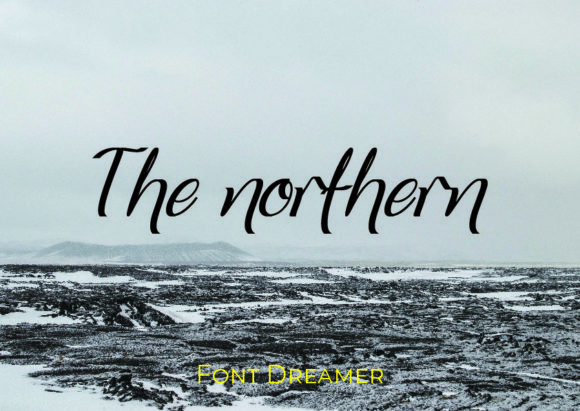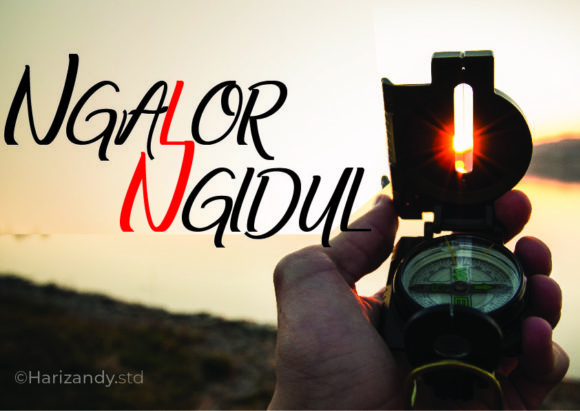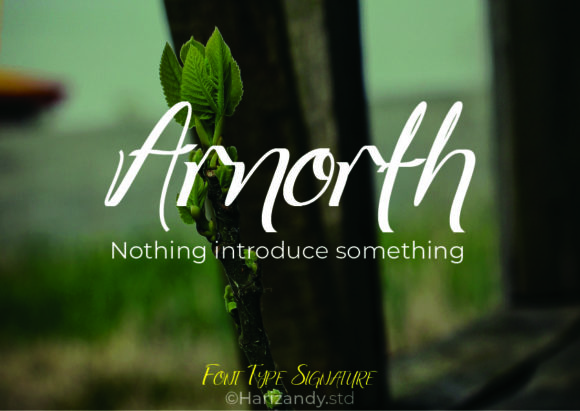
Introducing Arnorhth Font: The Ultimate Display Font for Standout Designs
Are you tired of using the same old fonts for your design projects? Look no further! Arnorhth Font is here to revolutionize your designs with its cool and fun vibe. This display font is specifically crafted to make your projects stand out from the crowd, and we’re excited to dive into its features and benefits.
What is Arnorhth Font?
Arnorhth Font is a modern display font that exudes a cool and edgy vibe. Its unique design makes it perfect for creative projects that require a bold statement. Whether you’re a designer, craftsperson, or DIY enthusiast, Arnorhth Font is an excellent addition to your font library.
Key Features of Arnorhth Font
- Cool and Fun Vibe: Arnorhth Font boasts a unique and trendy design that’s sure to capture attention.
- Display Font: This font is specifically designed for display purposes, making it ideal for headlines, titles, and other attention-grabbing elements.
- Standout Designs: With Arnorhth Font, you can create designs that truly stand out from the crowd.
- Easy to Read: Despite its bold and edgy design, Arnorhth Font remains easy to read, even at smaller sizes.
Who Can Benefit from Arnorhth Font?
Arnorhth Font is perfect for a wide range of designers and crafters, including:
- Graphic Designers: Add a bold and edgy touch to your designs, brochures, and posters.
- Web Designers: Use Arnorhth Font to create eye-catching headlines and titles for your websites and landing pages.
- Crafters: Add a personal touch to your DIY projects, such as handmade cards, scrapbooking, and other paper crafts.
- Social Media Enthusiasts: Use Arnorhth Font to create engaging and attention-grabbing social media graphics.
- Pair it with a neutral font: Combine Arnorhth Font with a neutral font for body text to create a striking contrast.
- Experiment with colors: Try out different colors and gradients to make your designs pop.
- Play with sizes: Experiment with different font sizes to create visual hierarchy and emphasis.
Tips and Tricks for Getting the Most Out of Arnorhth Font
Here are some additional tips and tricks to help you get the most out of Arnorhth Font:
- Use it sparingly: Arnorhth Font is bold and attention-grabbing, so use it sparingly to avoid overwhelming your designs.
- Mix and match: Experiment with different font combinations to create unique and interesting visual effects.
- Pay attention to kerning: Make sure to adjust the kerning to ensure that your text looks balanced and visually appealing.
In conclusion, Arnorhth Font is a cool and fun display font that’s perfect for designers and crafters looking to add a bold and edgy touch to their projects. With its unique design and versatility, Arnorhth Font is sure to turn any design project into a true standout. So why wait? Download Arnorhth Font today and take your designs to the next level!